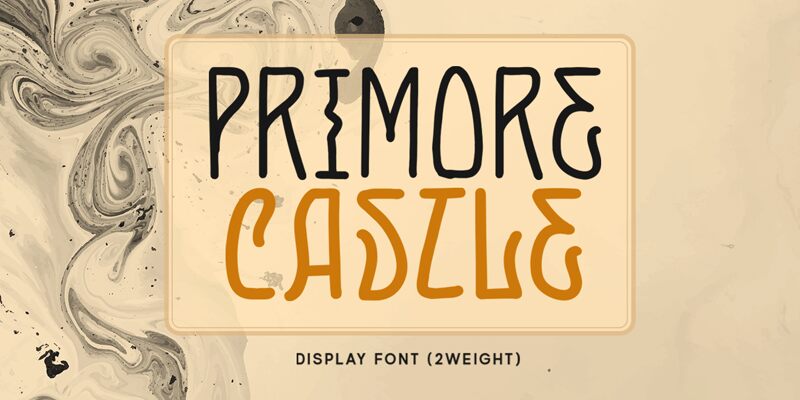
Primore Castle, designed by Letterhend Studio, is a captivating display font that exudes a retro charm. With its semi-light weight and condensed width, this font is perfect for creating eye-catching headlines, logos, and posters. Its unique design adds a touch of nostalgia to any project, making it ideal for vintage-inspired branding campaigns or retro-themed events. Primore Castle will transport your audience back in time while effortlessly capturing their attention. Let your creativity run wild as you explore the endless possibilities this stylish font has to offer.